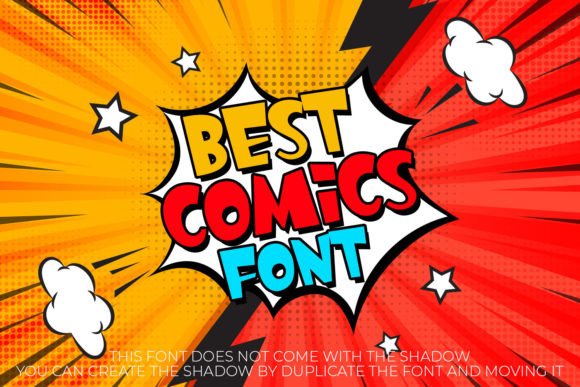
The Ultimate Guide to the Best Comics Font: Unleashing Quirkiness and Authenticity
I’ll never forget the time I was working on a project for a children’s book, and I was struggling to find the perfect font to bring the story to life. The client wanted something playful, quirky, and fun, but I was coming up blank. That’s when I stumbled upon the Best Comics font, and it was love at first sight! ✨
This enchanting display font embodies everything I was looking for: quirkiness, authenticity, and a dash of whimsy. In this article, I’ll share my honest review of the Best Comics font, provide a practical guide on how to use it, and explore similar fonts that might tickle your fancy.
• ✨ The Best Comics font is ridiculously fun and playful, making it perfect for kids’ projects, school assignments, or any creative endeavor that needs a dash of personality.
• ✅ Its quirky style is sure to grab attention and turn any design into a standout.
• 🎉 The font comes with a range of OpenType features, glyphs, and stylistic alternates, giving you plenty of creative options.
The Not-So-Good Stuff
• 🤔 Some users might find the font a bit too bold or overpowering for certain design projects.
• ⚠️ The font’s playful style might not be suitable for more formal or professional designs.
The Story Behind the Best Comics Font
The Best Comics font was designed with one goal in mind: to bring a dash of quirkiness and authenticity to design projects. Its creator, a passionate typographer, drew inspiration from classic comic books and children’s illustrations. The result is a font that’s both playful and charming.
Q: Is the Best Comics font suitable for professional designs?
A: While the Best Comics font is ridiculously fun, it might not be the best choice for formal or professional designs. However, it could work well for creative industries like advertising, marketing, or entertainment.